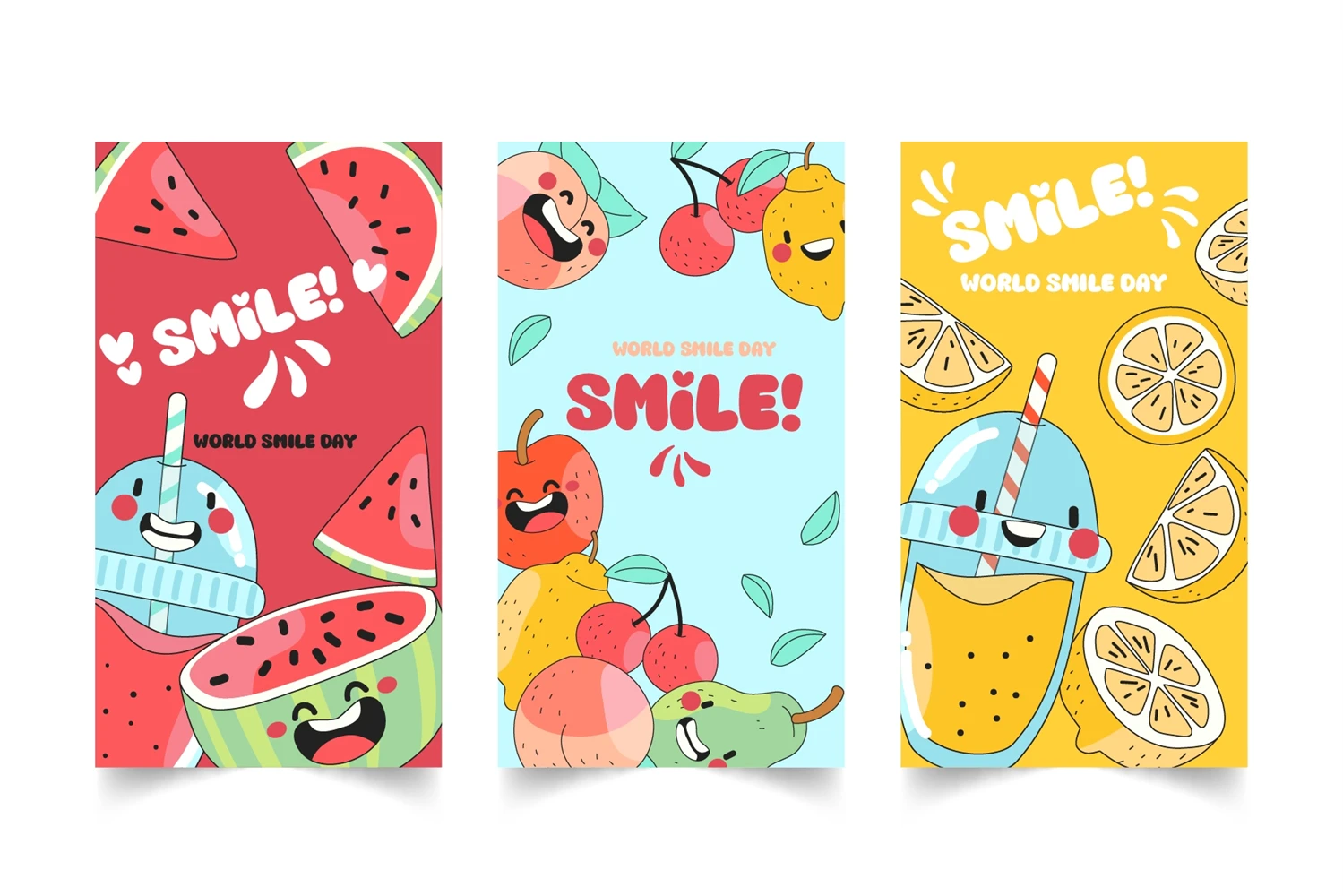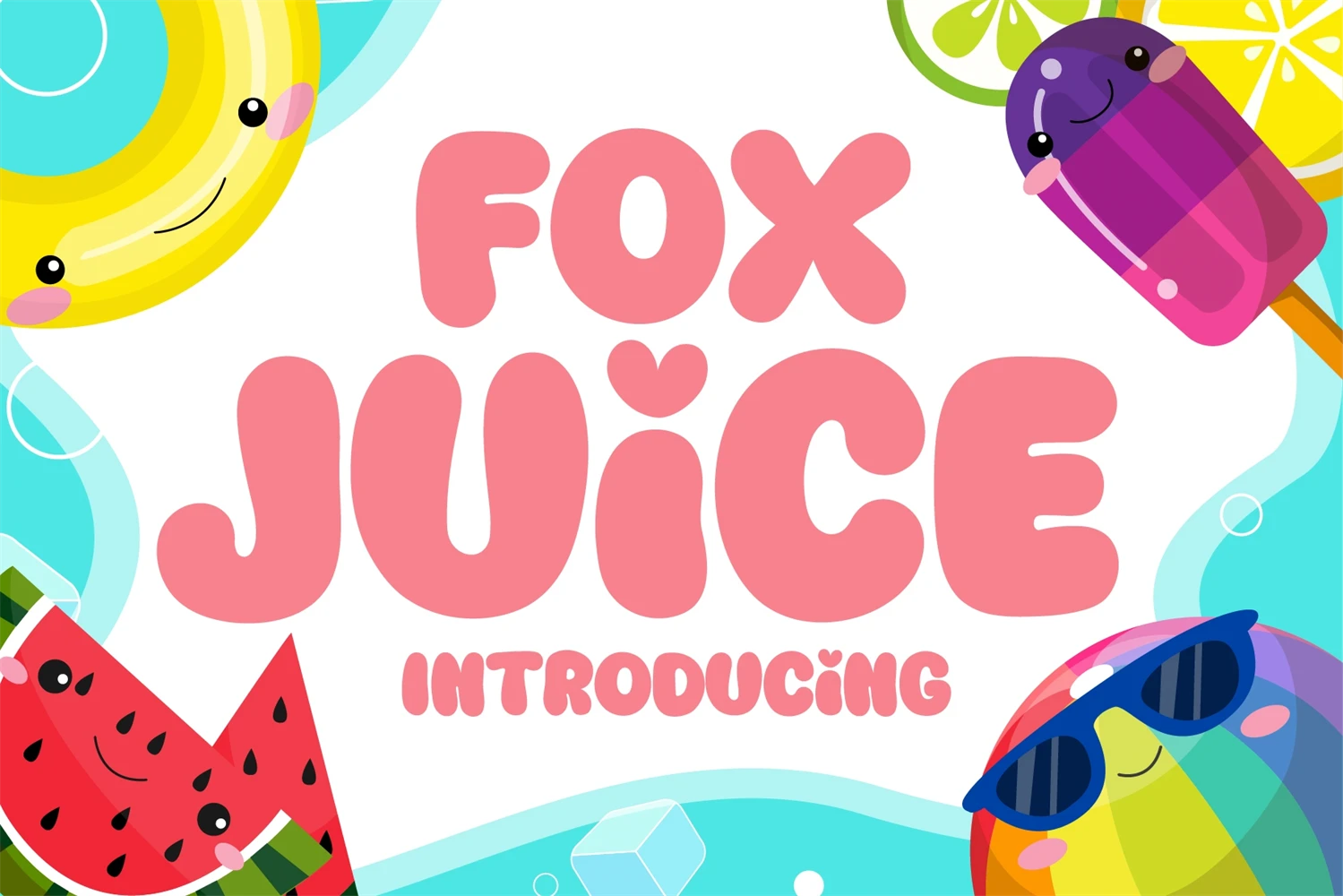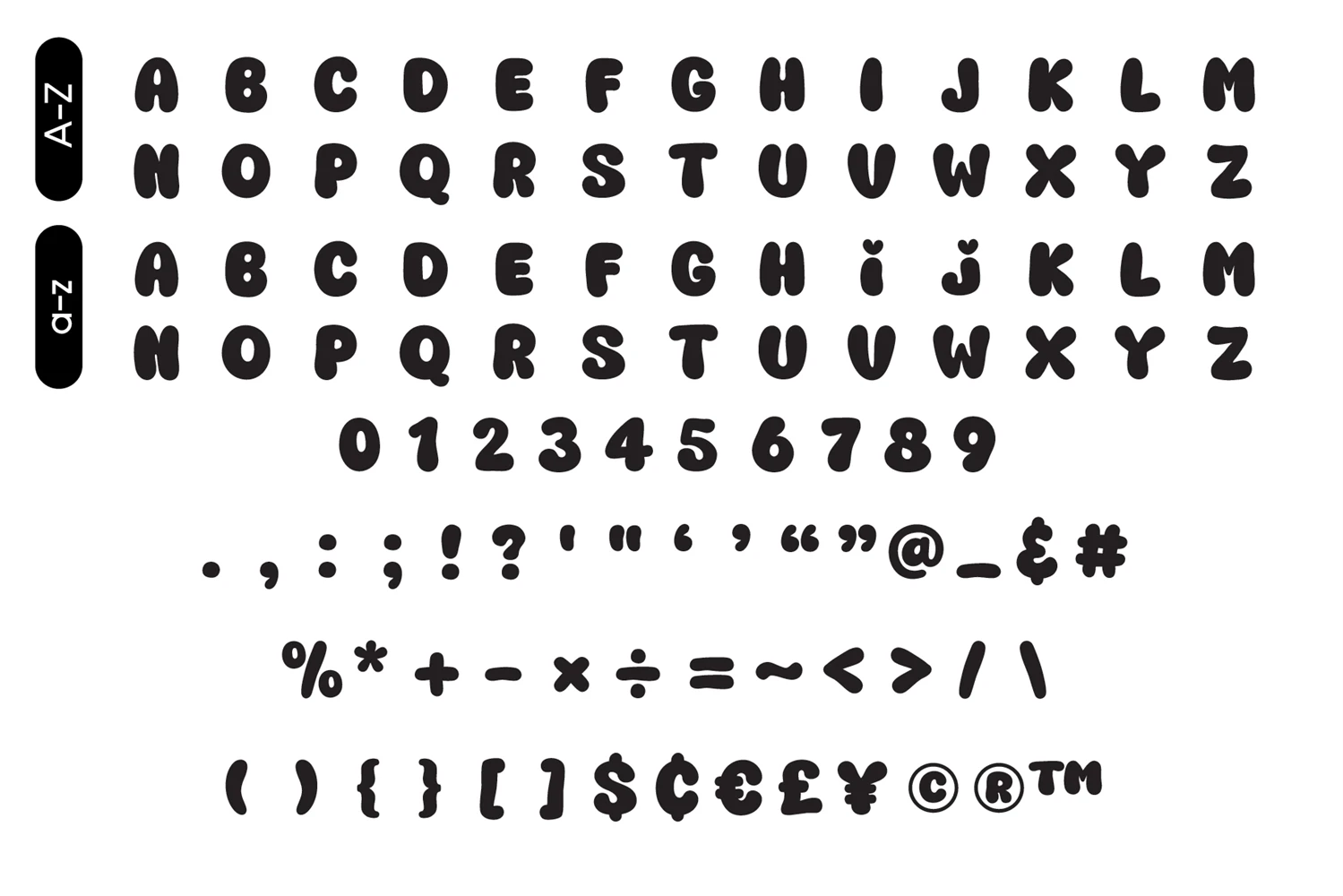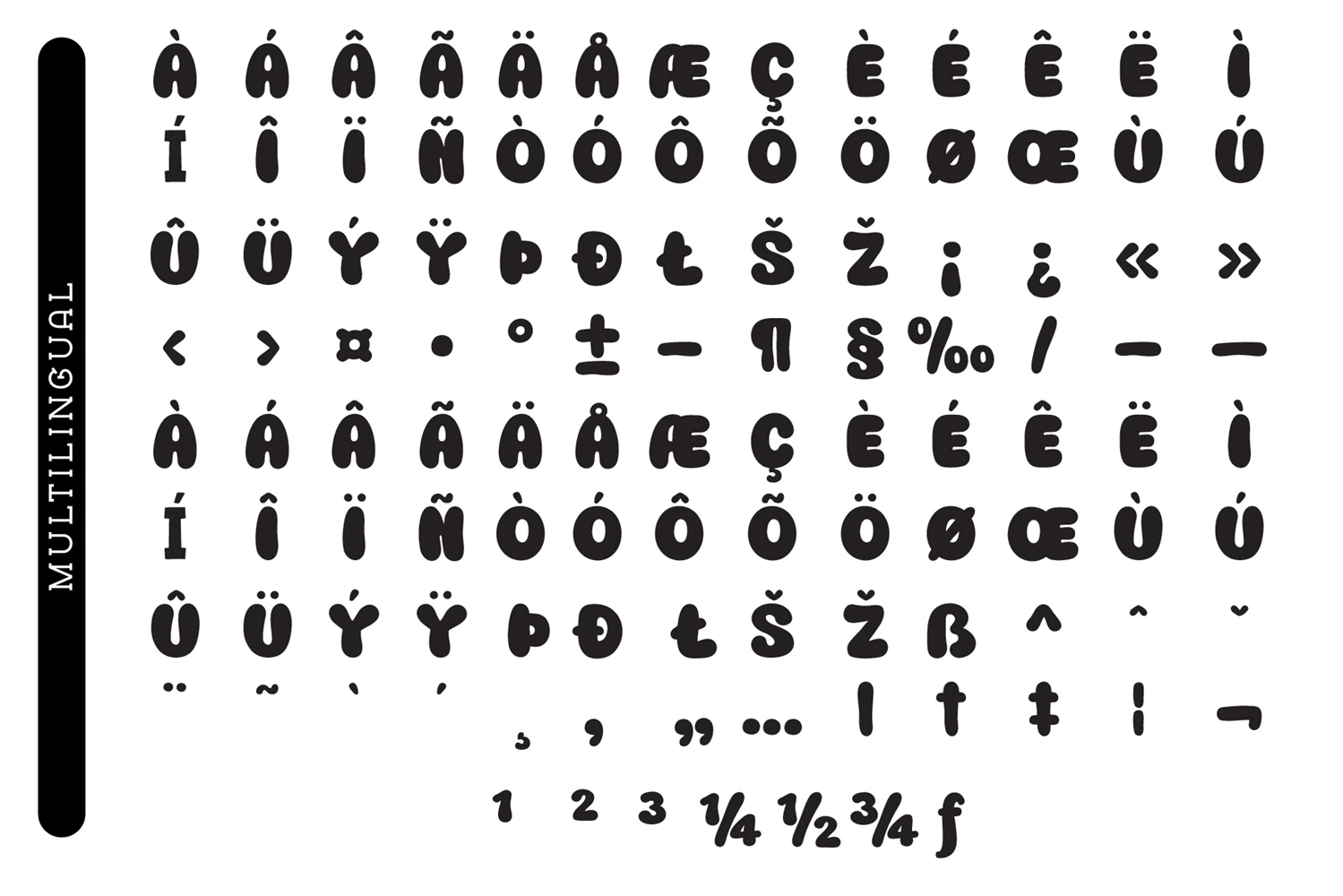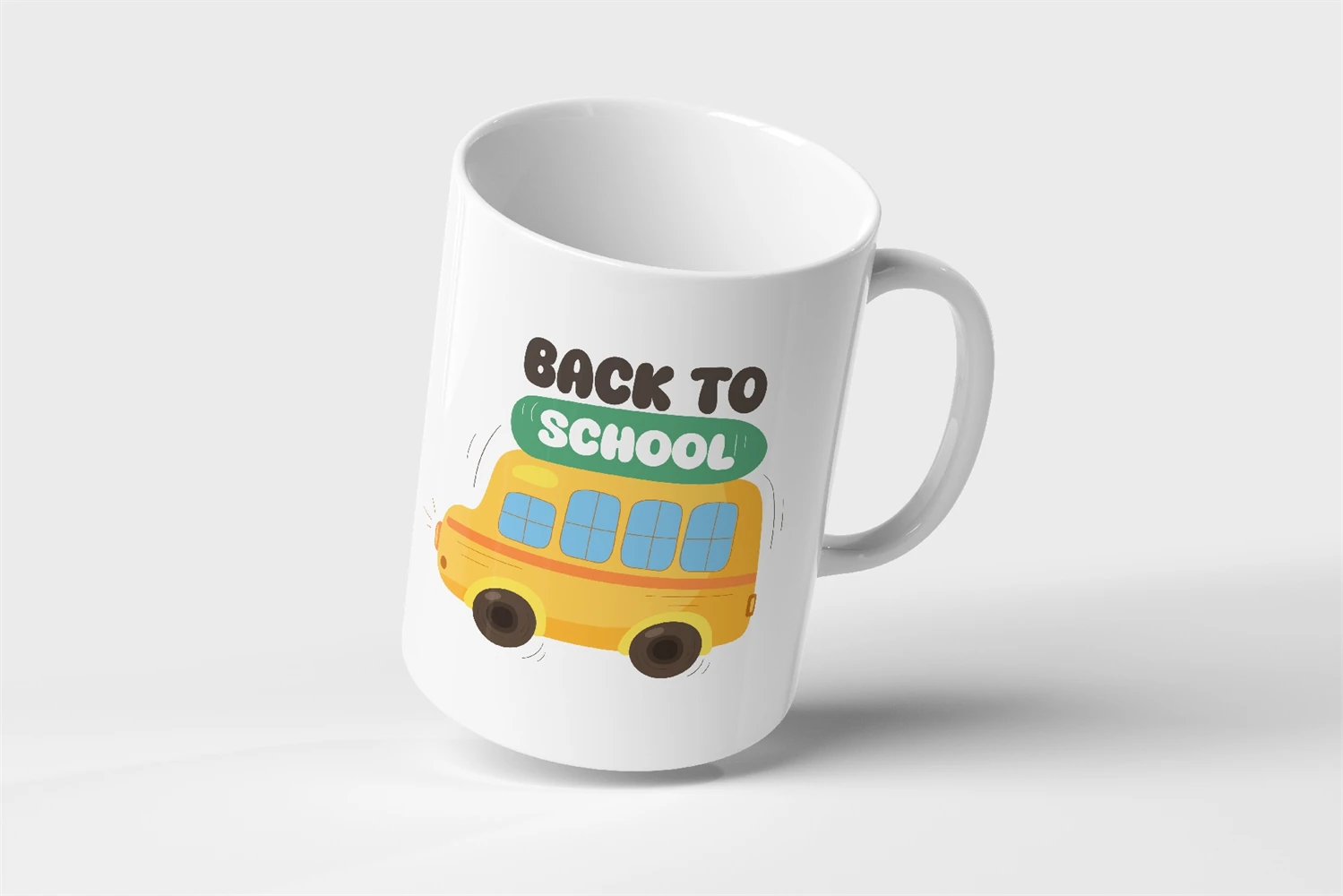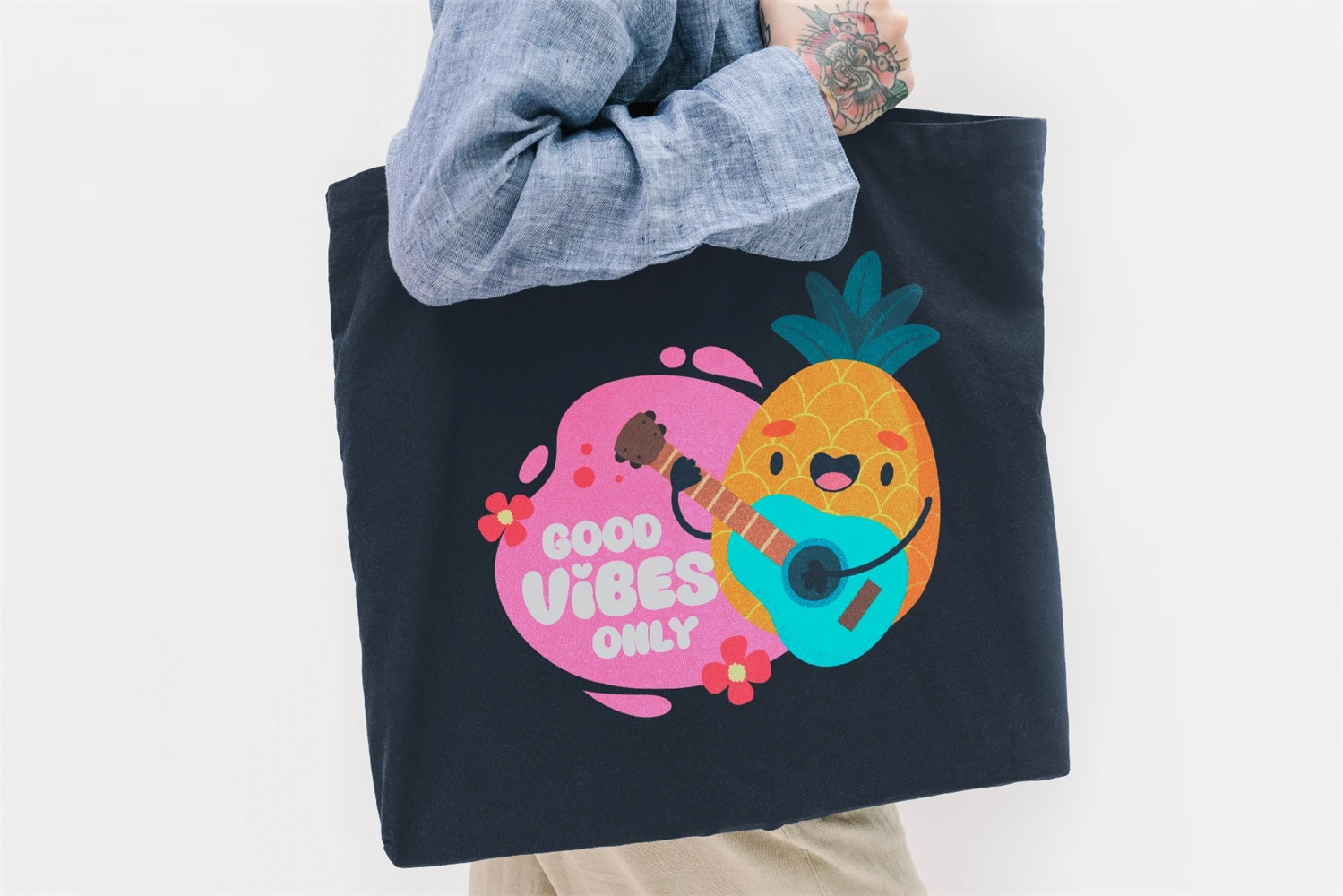
Fox Juice font is a bold, playful Display font that adds a captivating and energetic touch to your designs. Its main feature is its vibrant and expressive design, allowing you to create attention-grabbing headlines, t-shirt typography, banners, product labels, and more with its versatility and eye-catching presence.